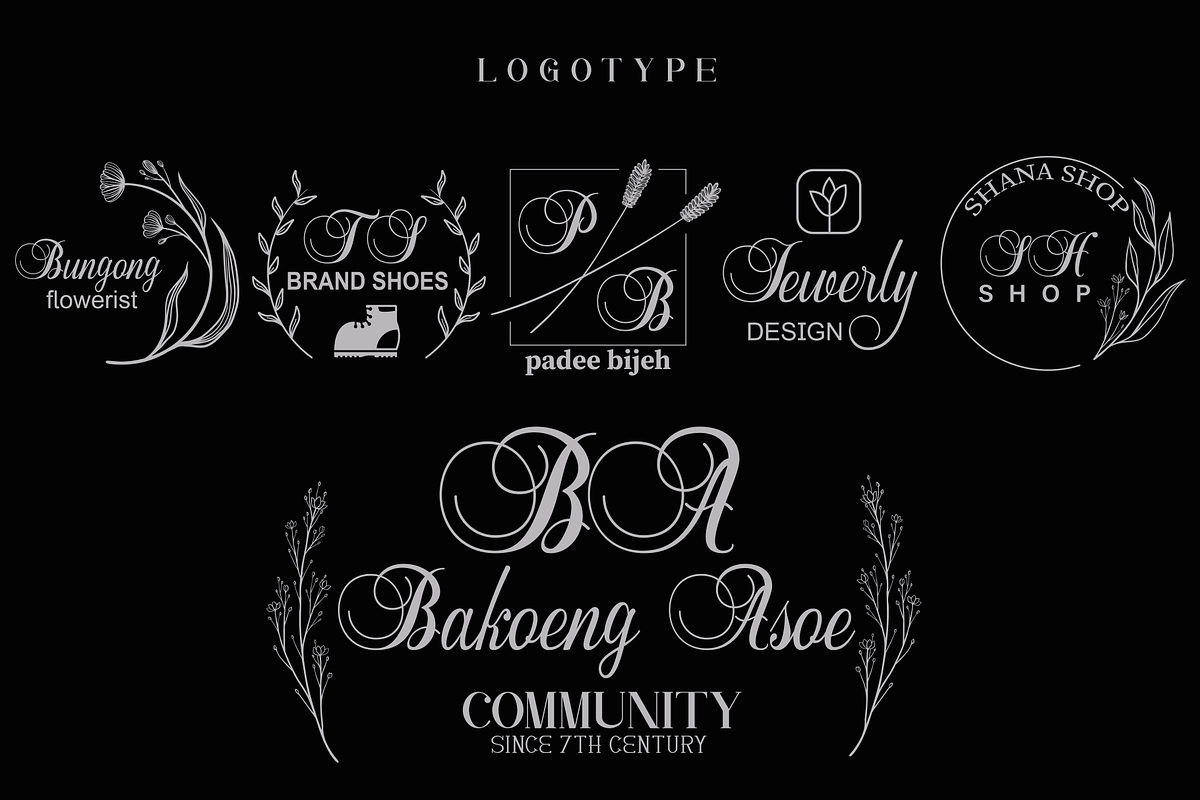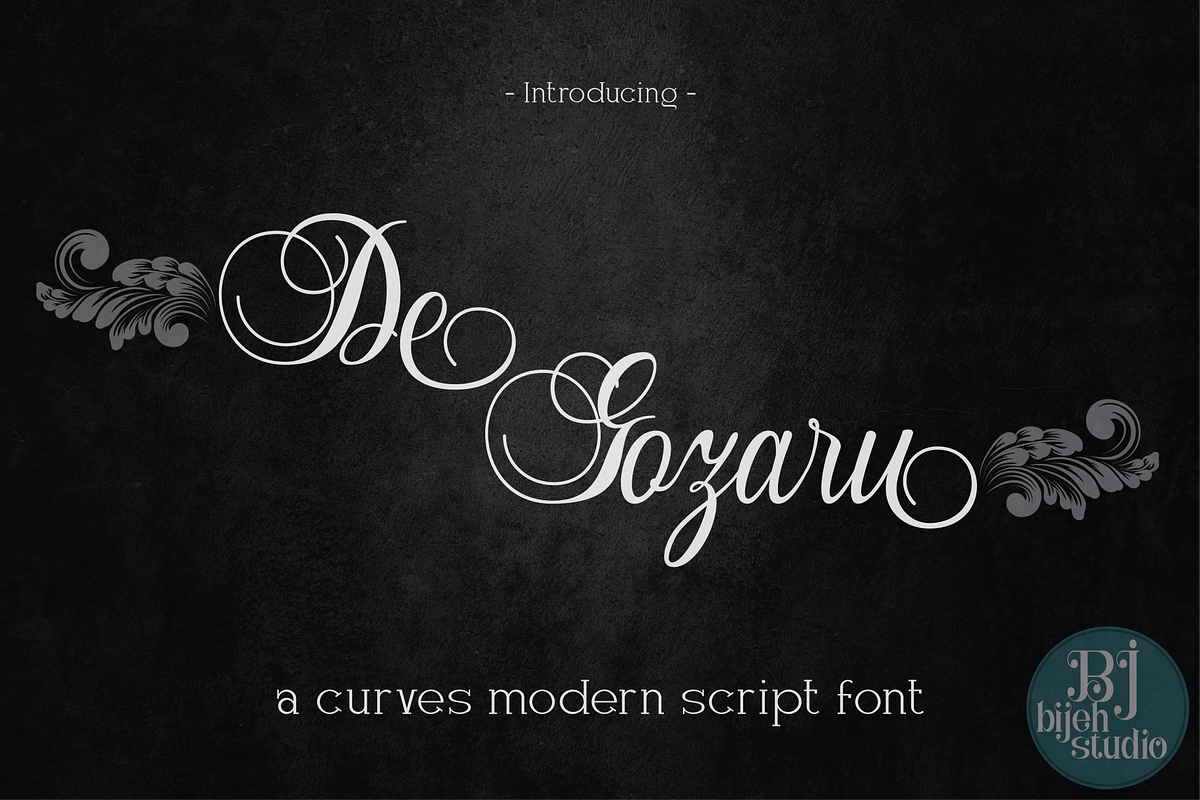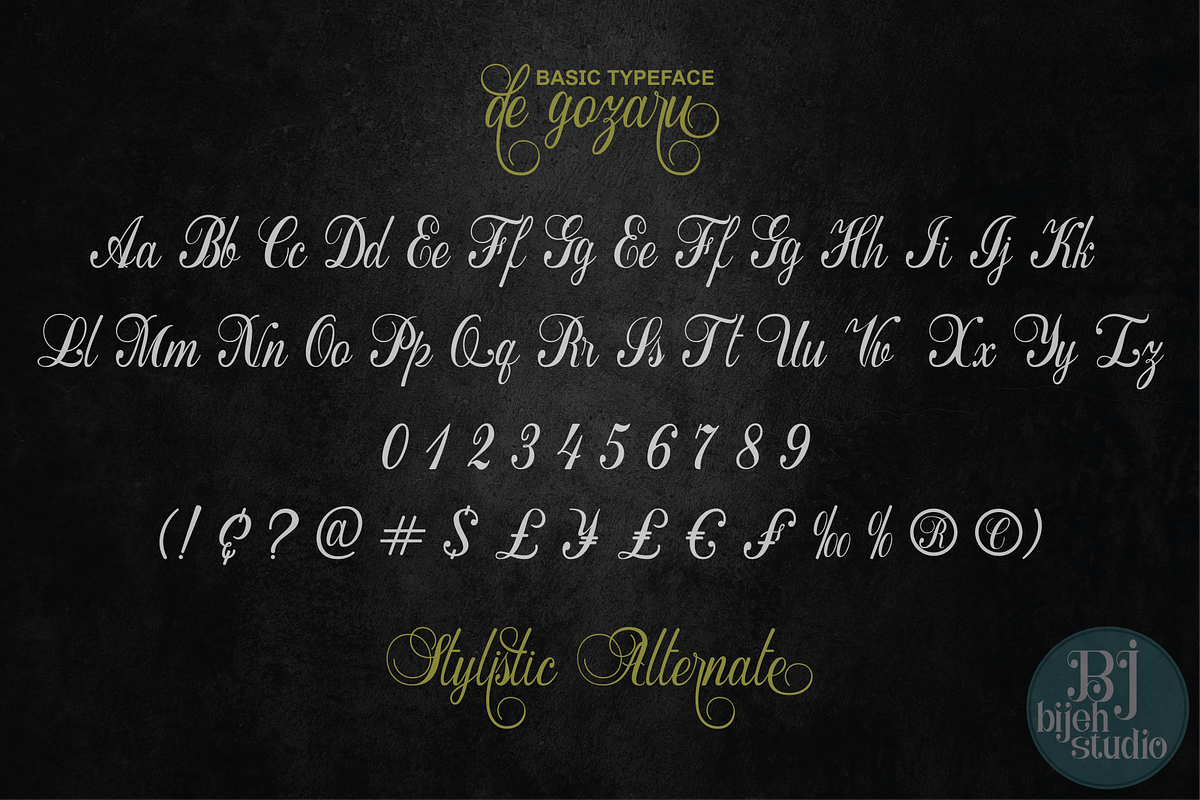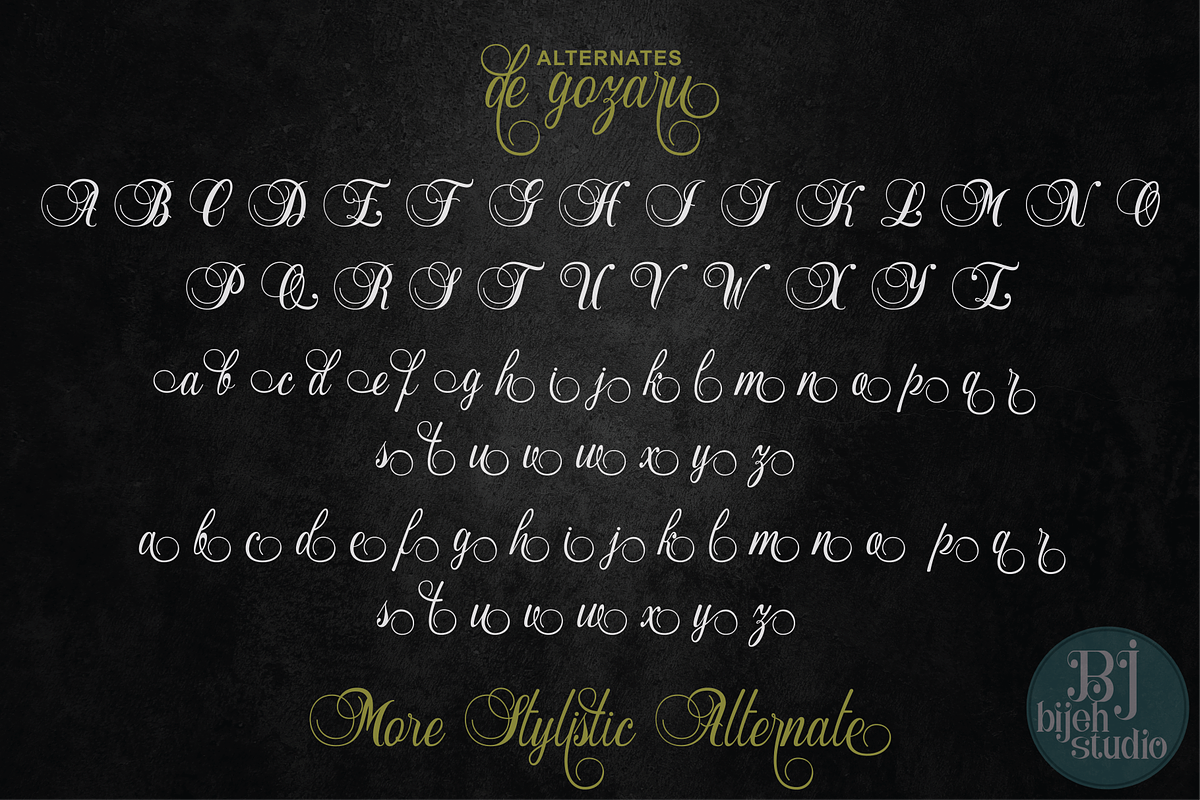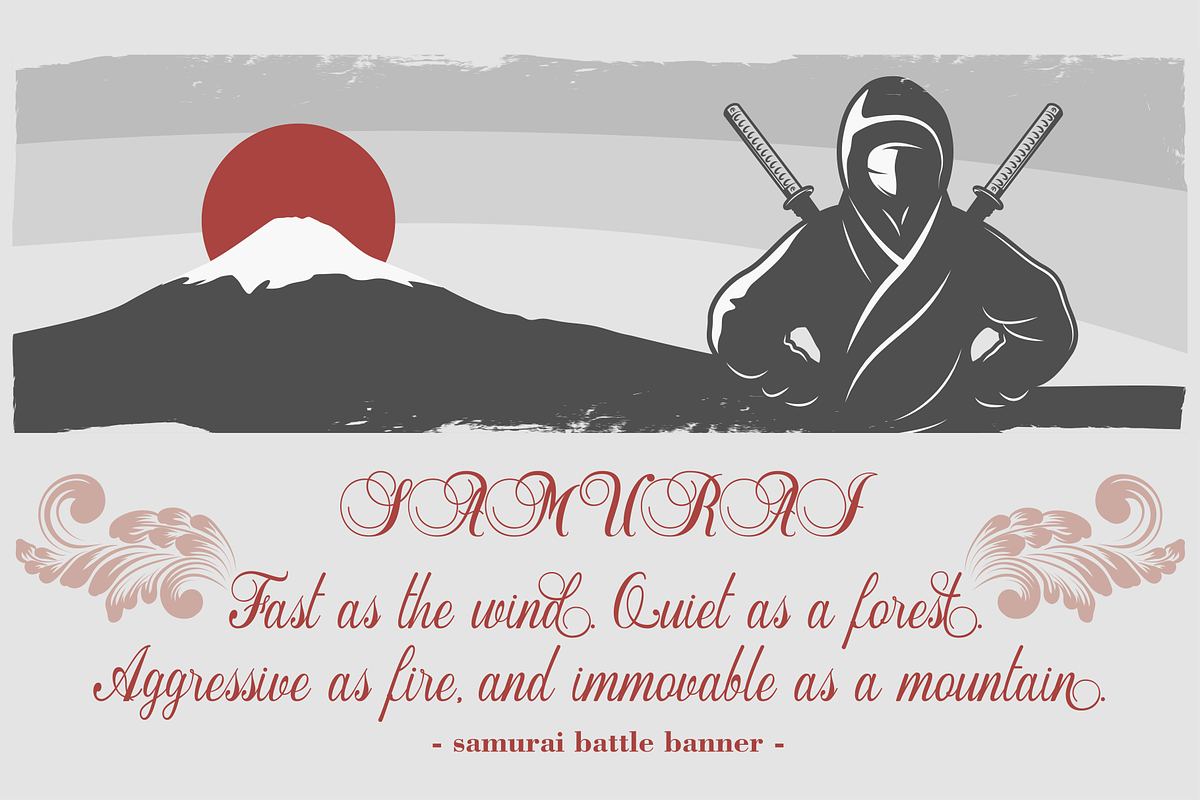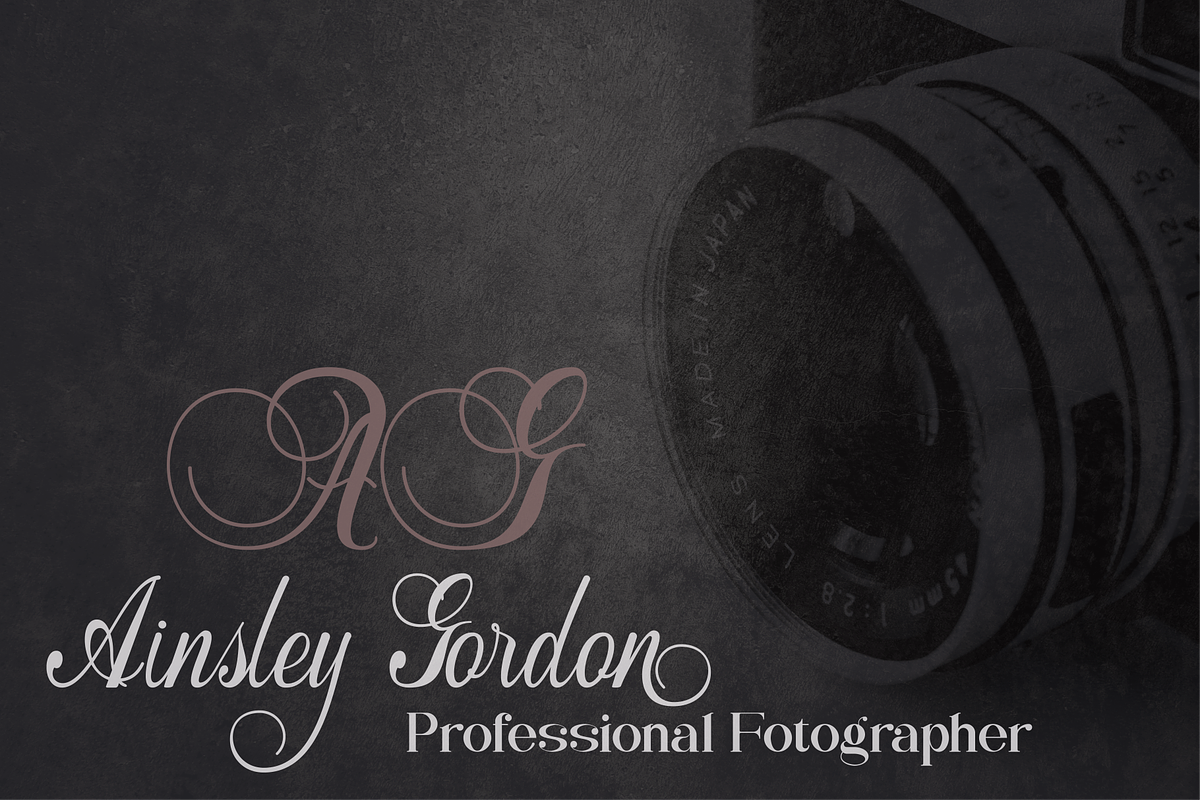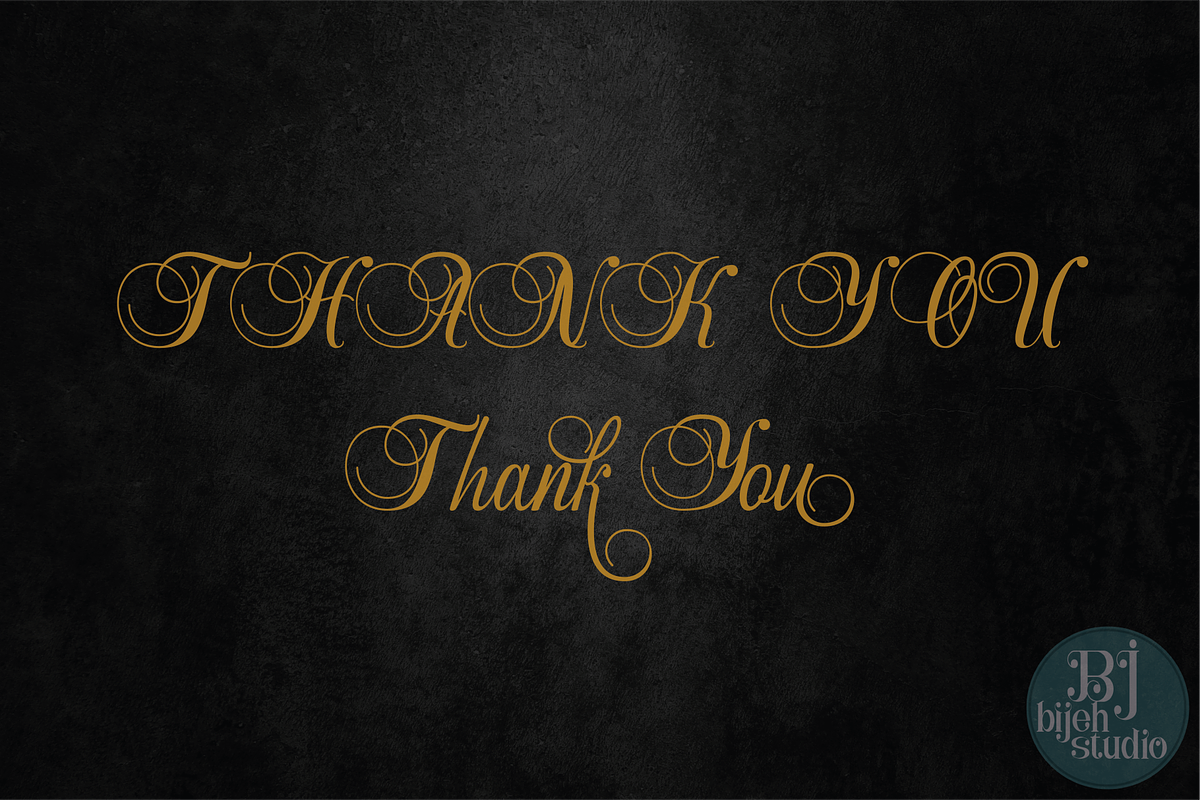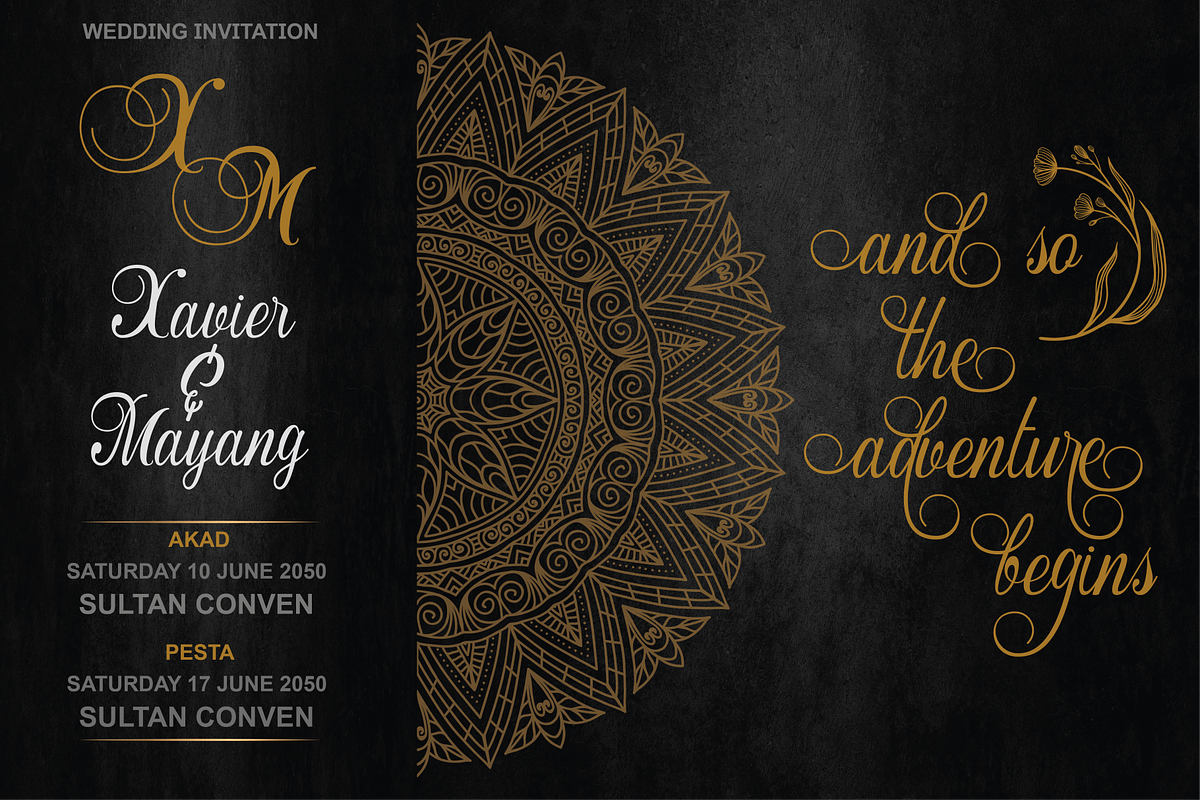
De Gozaru
De Gozaru is a classic calligraphy font with a beautiful arch. This font is available in several modern swirls that can make your work look elegant, sweet and perfect. This font also has several alternatives that can allow you to improvise your writing.